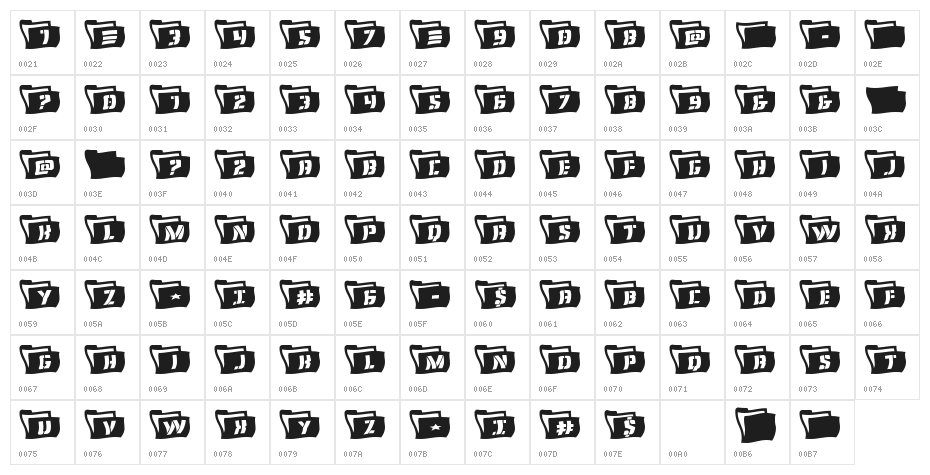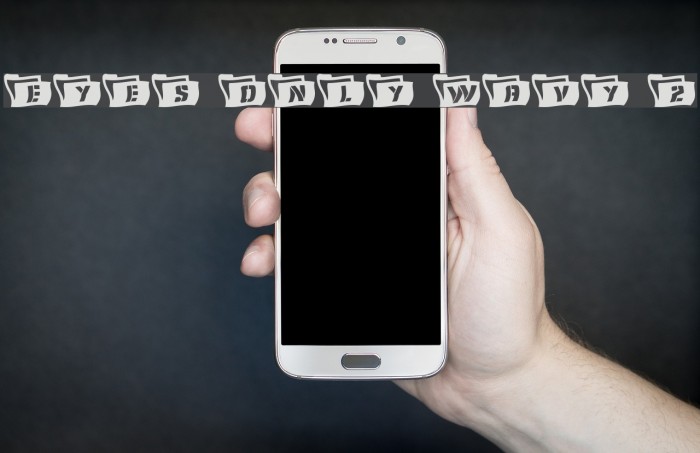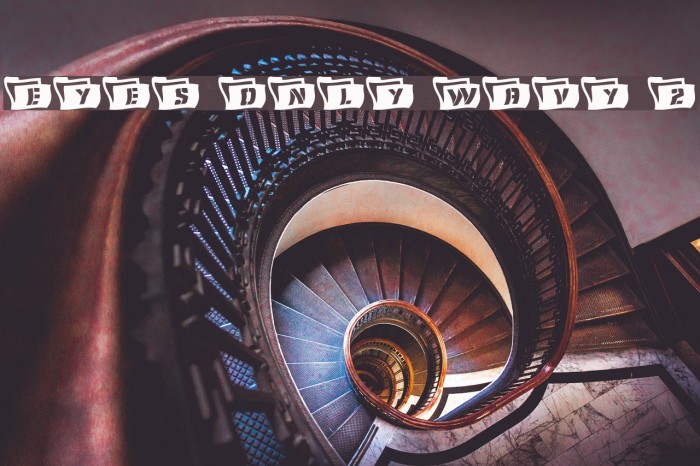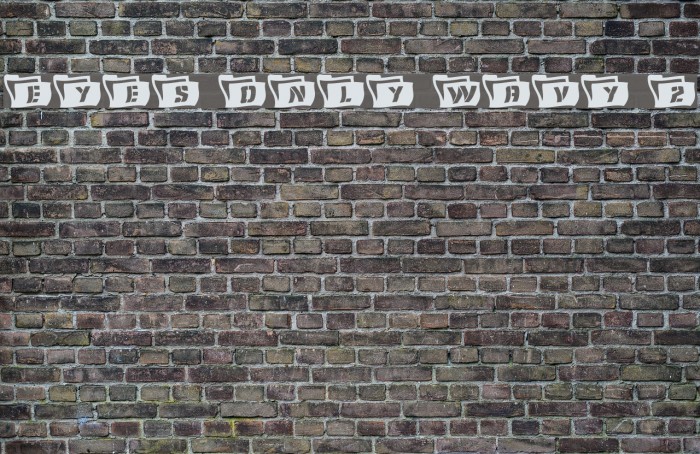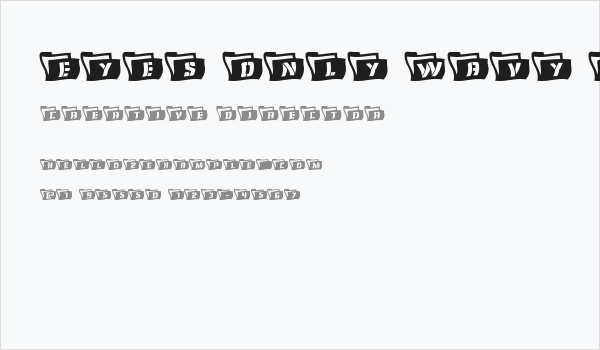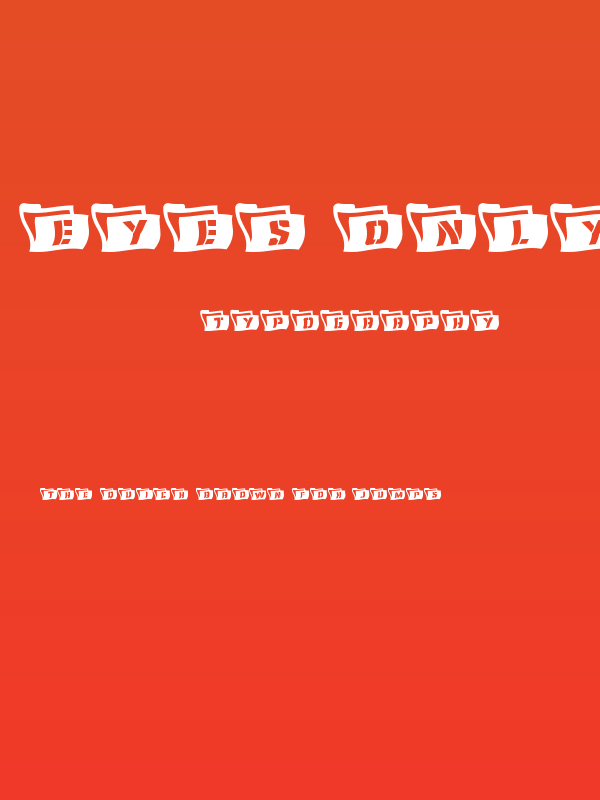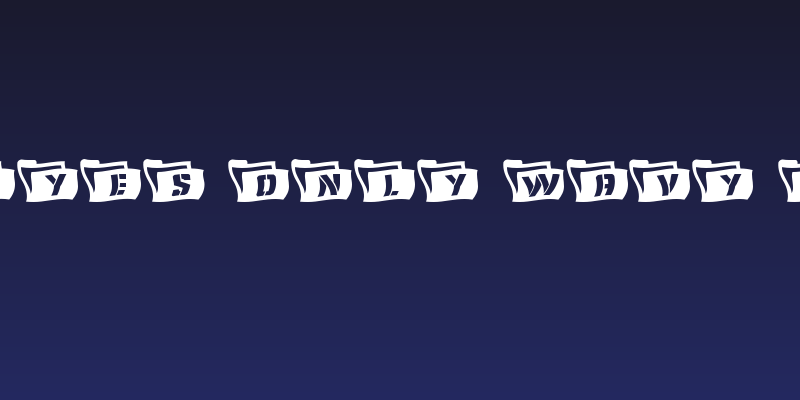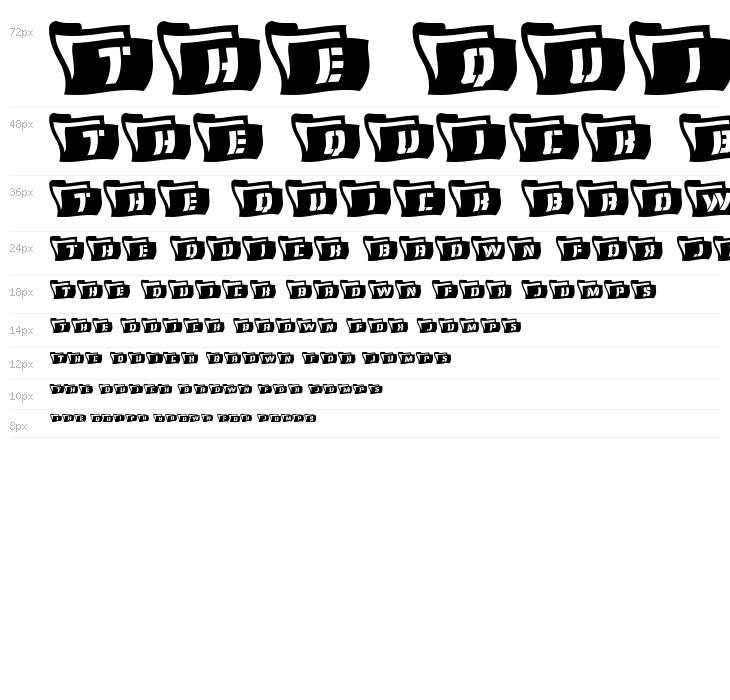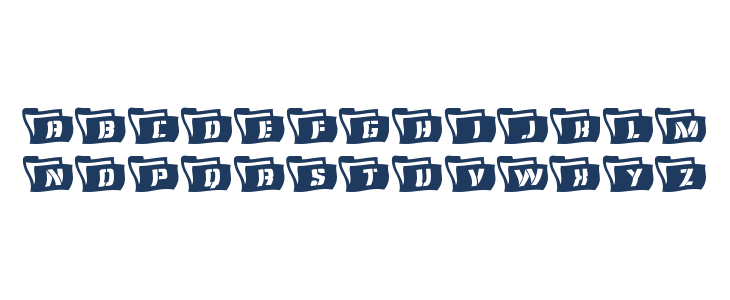
Eyes Only Wavy 2 Font
Eyes Only Wavy 2 Description
This font features a bold and dynamic style with a wavy, distorted appearance that gives each character a sense of movement. The letters are enclosed in a shadowed, block-like shape, enhancing their three-dimensional look. The design is highly decorative, making it stand out with its unique visual impact. The characters are uniformly bold, with a consistent width and a playful, artistic flair. The font's high contrast between the thick strokes and the negative space within the letters adds to its dramatic effect. Its distinctive style is suitable for projects that require a strong visual identity.
| Proposed Projects | Ideal for posters, album covers, branding, and any creative project needing a bold statement. |